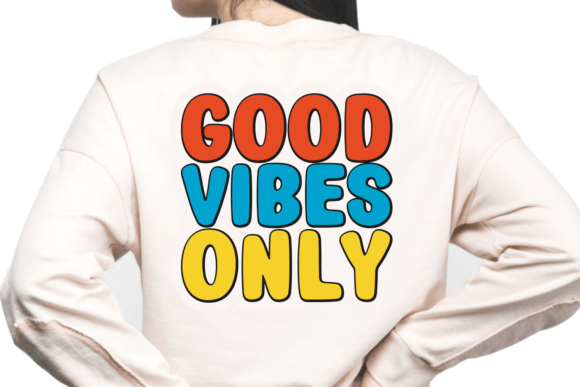
Modern School Font
Unveiling the “Modern School” font – your key to unlocking playful creativity in your back-to-school adventures! Intricately crafted to capture the joyful exuberance of playground doodles, this whimsical typeface is a go-to choice for educational resources, children’s manuscript, and school-themed visuals. Its charming flair injects a dose of merriment into any endeavor, transforming the process of learning and crafting into a spirited journey of discovery.